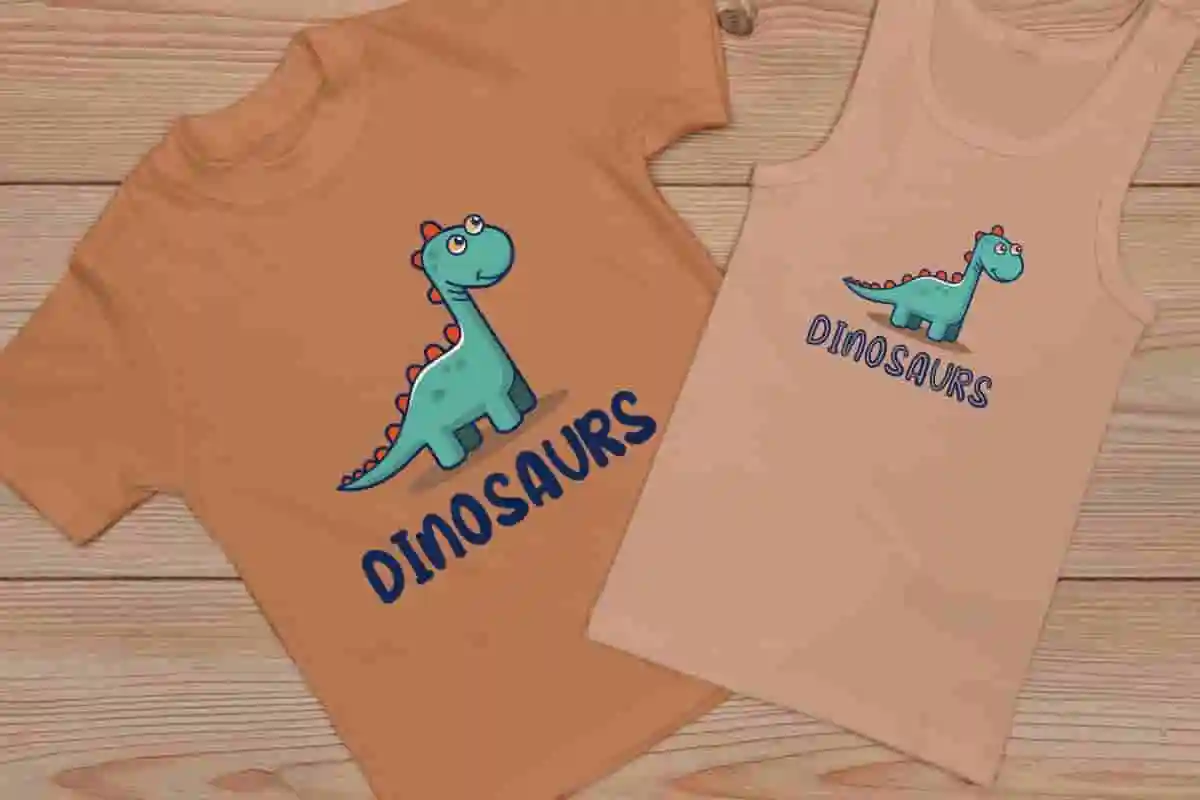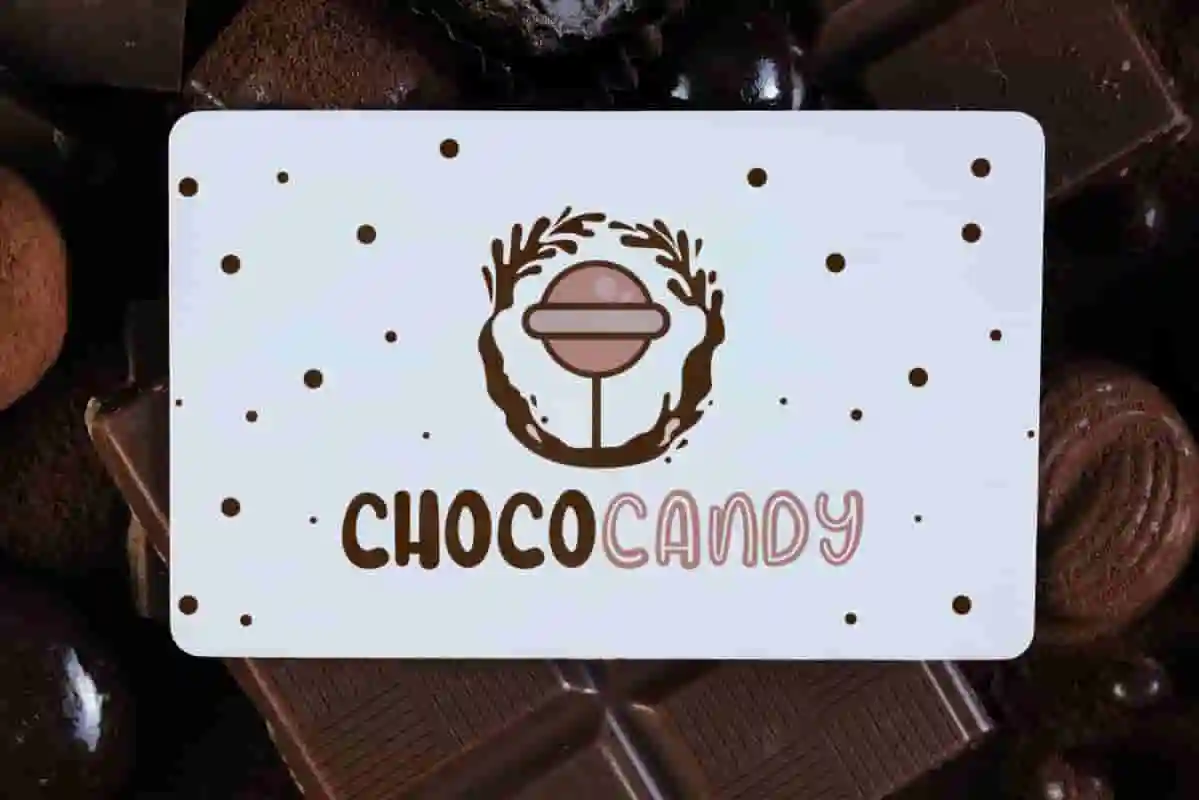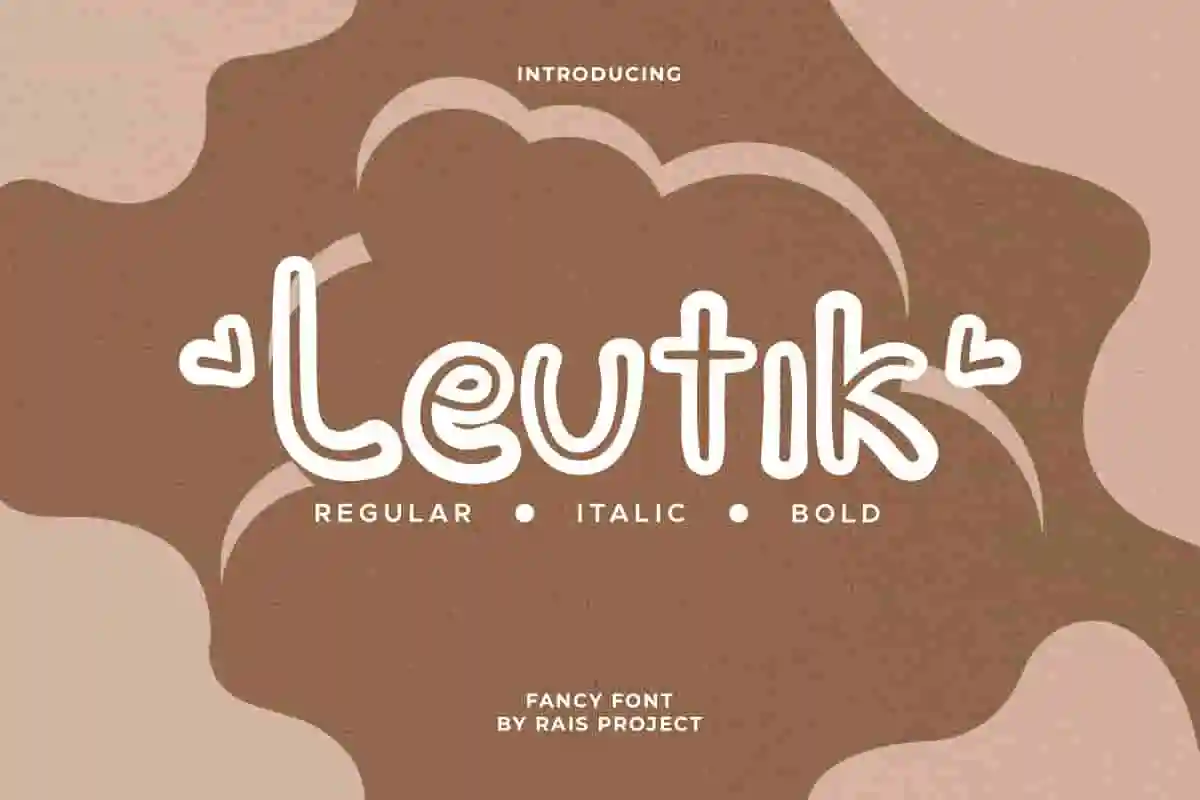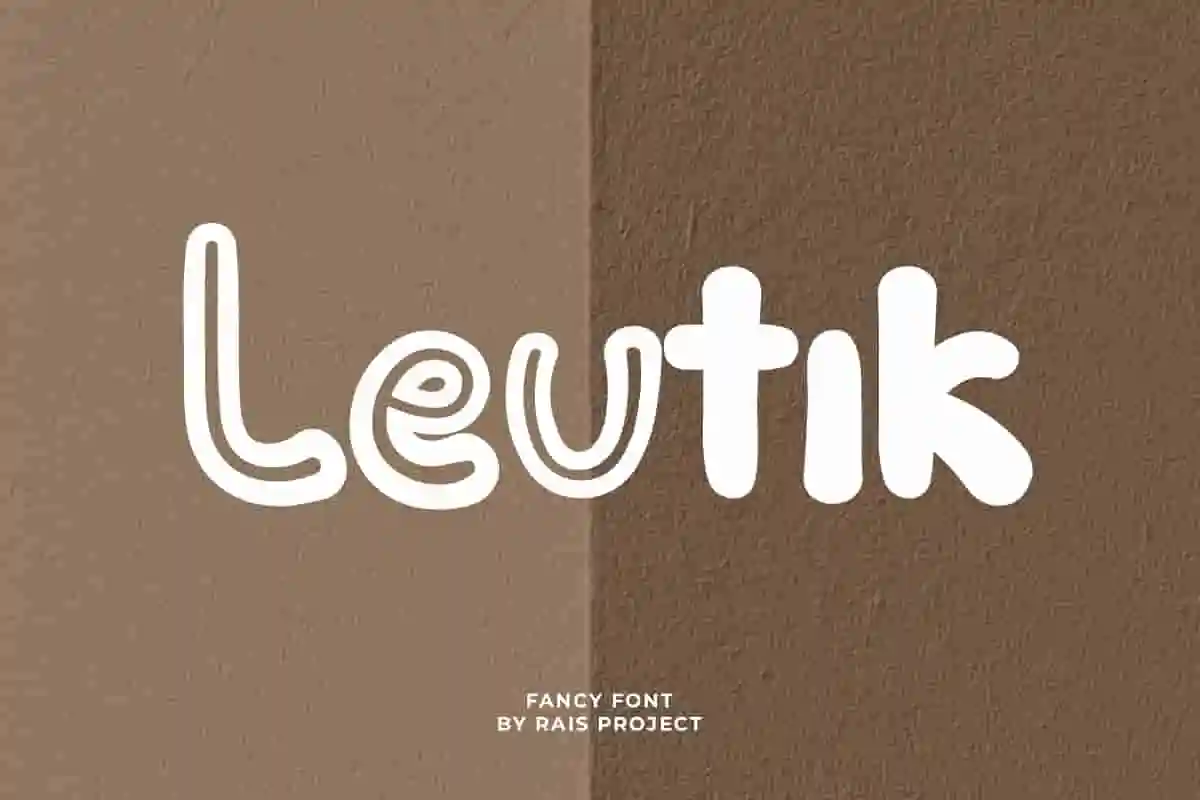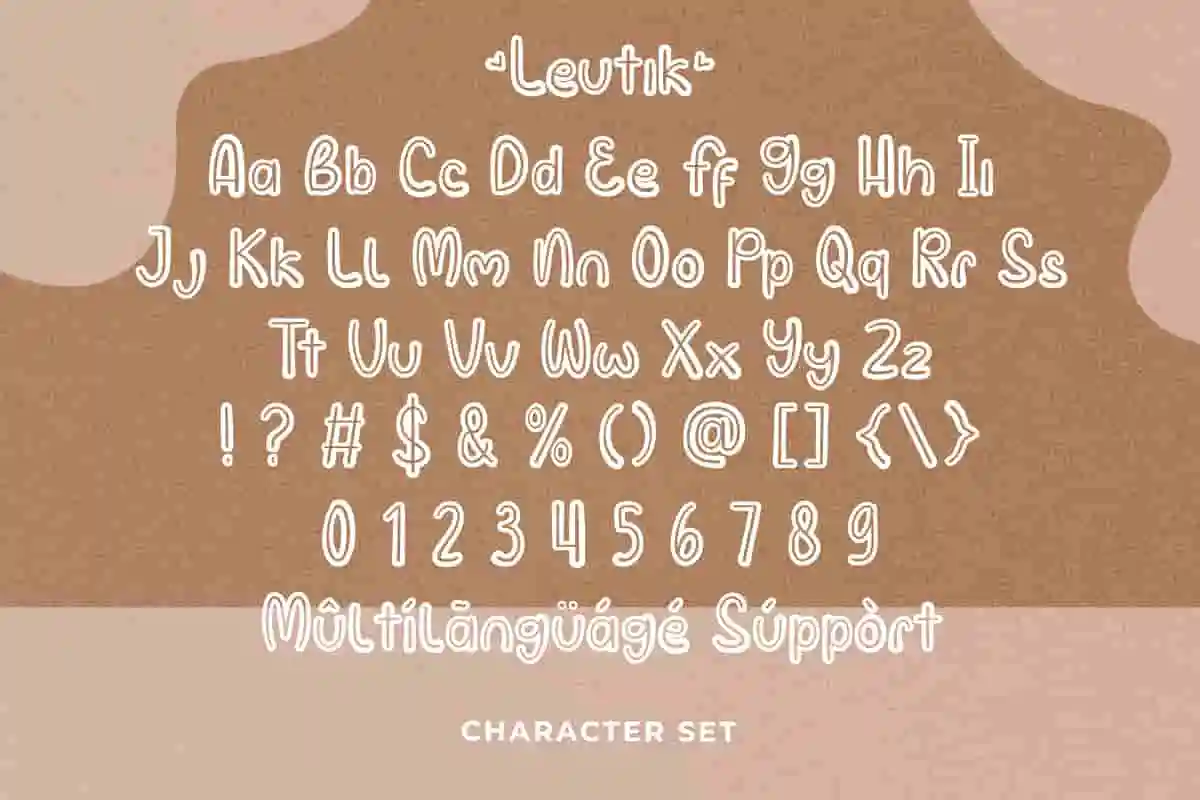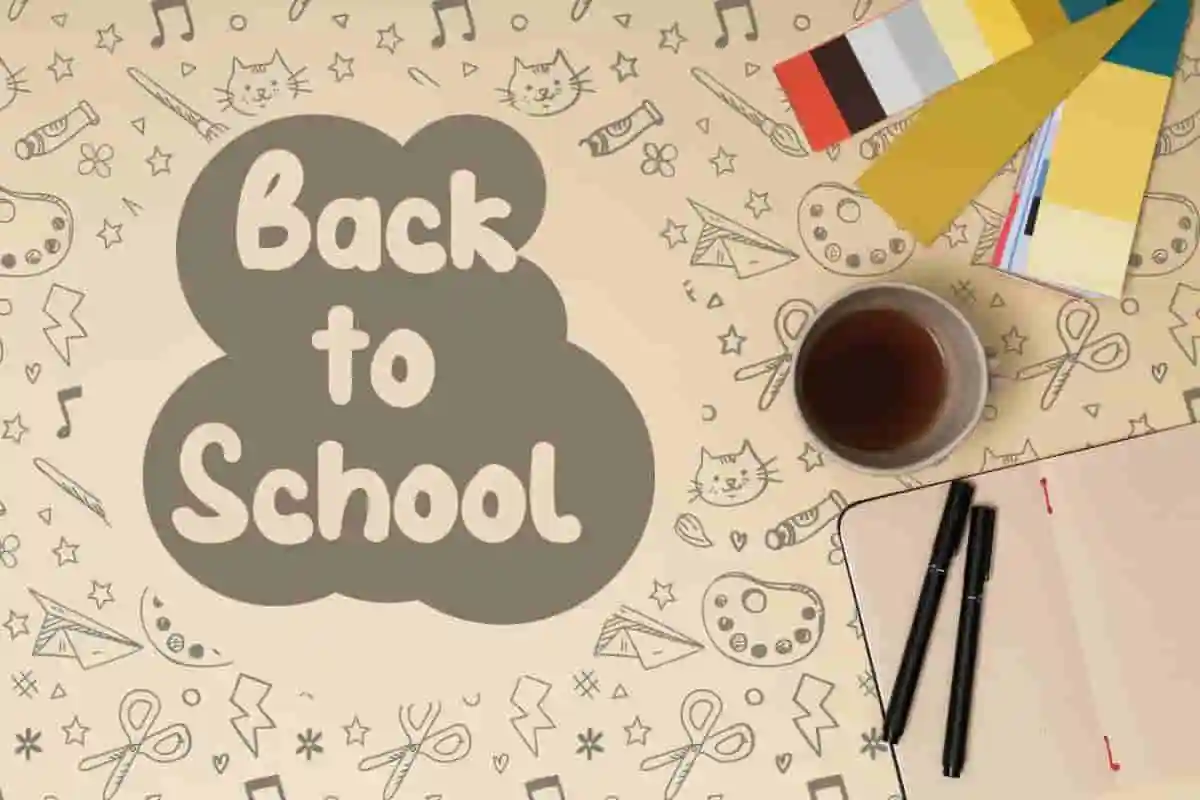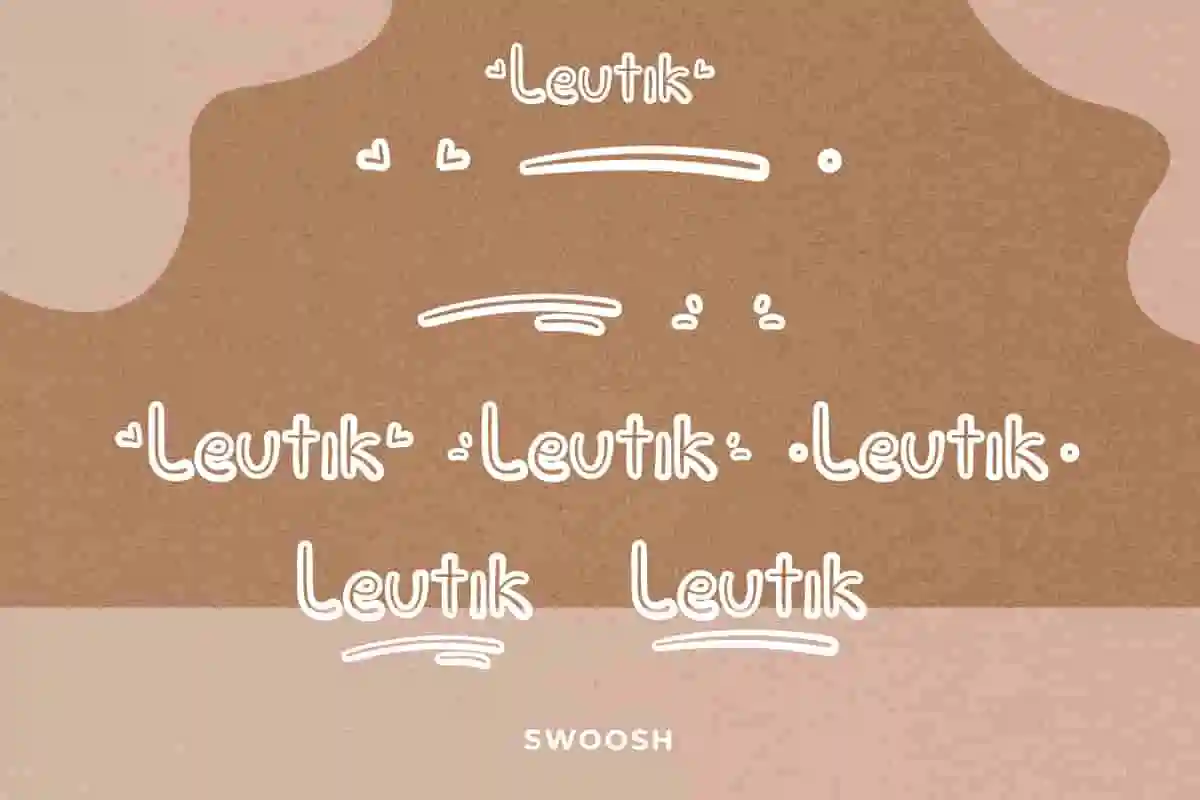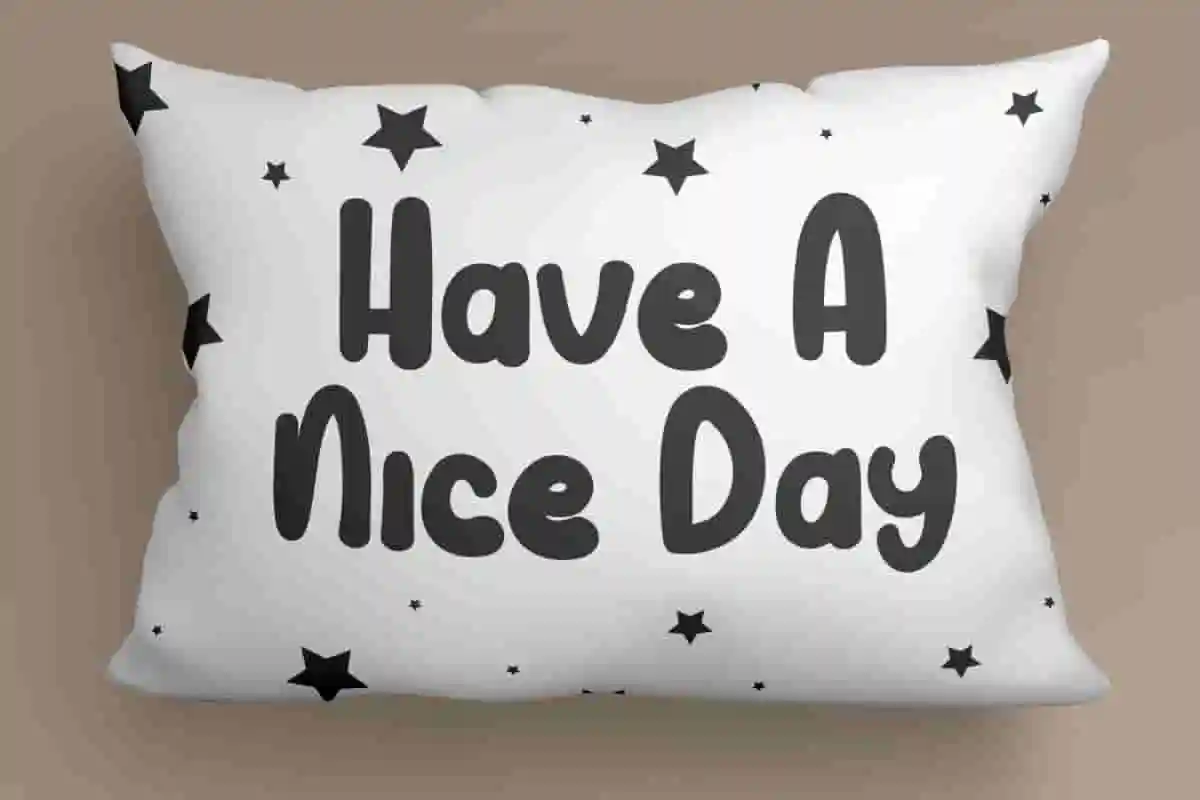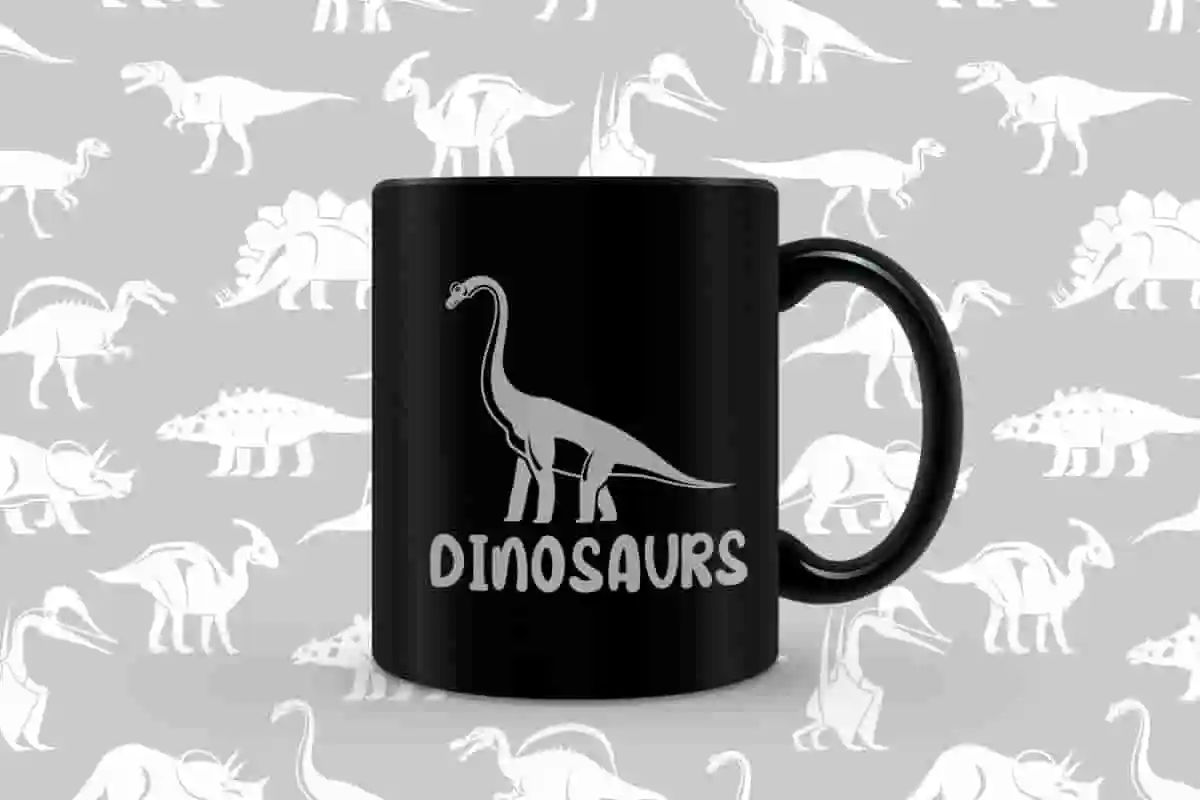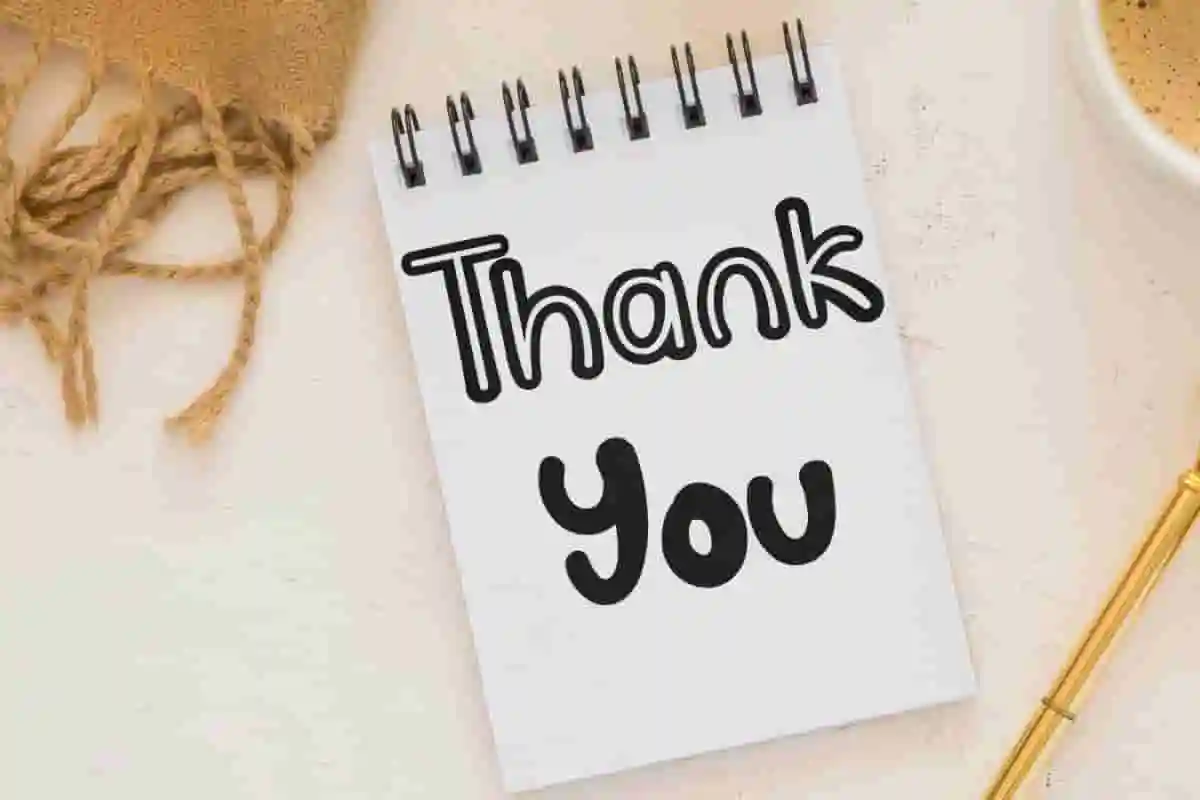
Leutik Cartoon Font
Leutik Font is a comic display decorative sans serif font family, designed by Rais Project. It will be great for Games, Movie, Music, events, Food branding, Kids related product Branding etc
Leutik Font is a cartoon or comic display Sans Serif font family, designed by RaisProject.You can see the demo font below. You can also input any word you want so you can see what it will look like :
Leutik Comic Sans Serif Font remotely made by RaisProject team in Indonesia. Leutik has three styles : Regular, Italic and Outline. The font handcrafted for any your special projects including : brands, promotion, events, games, advertising, magazine, signage, invitation, stationery, social media posts, label, or and any projects that need unique style. The industries for this font is Comic, Events, Games, Magazine, Music, Movies, Cafe, Restaurant etc On the package You will get: